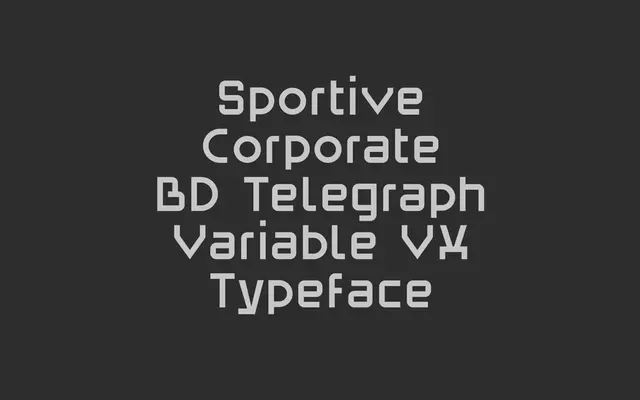
BD Telegraph
A variable sans with width and weight axes, originally designed in 2011 and updated in 2023, aimed at sports, gaming and screen entertainment contexts.
Spanning Light to Medium across Condensed, Normal and Expanded widths, the family is available as a variable font covering both axes simultaneously. Two stylistic sets offer alternate characters for additional personality, and the extended Latin coverage supports a broad range of European languages. It suits titling and short-form text in sports graphics, film titles and game interfaces rather than extended body copy.
A geometric-leaning grotesque sans designed for titling and short text, with variable axes covering width and weight. The condensed and expanded variants, alongside the sporty character alternates, align it with a display-oriented grotesque tradition.